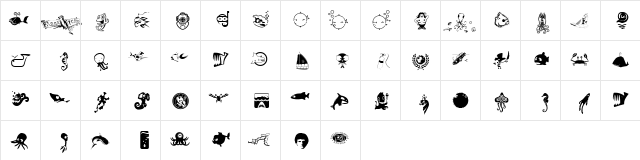
Floodicons Regular
Design Context for Floodicons Typeface
Floodicons is a composed and adaptable typeface that performs quietly and consistently across a wide range of design contexts.